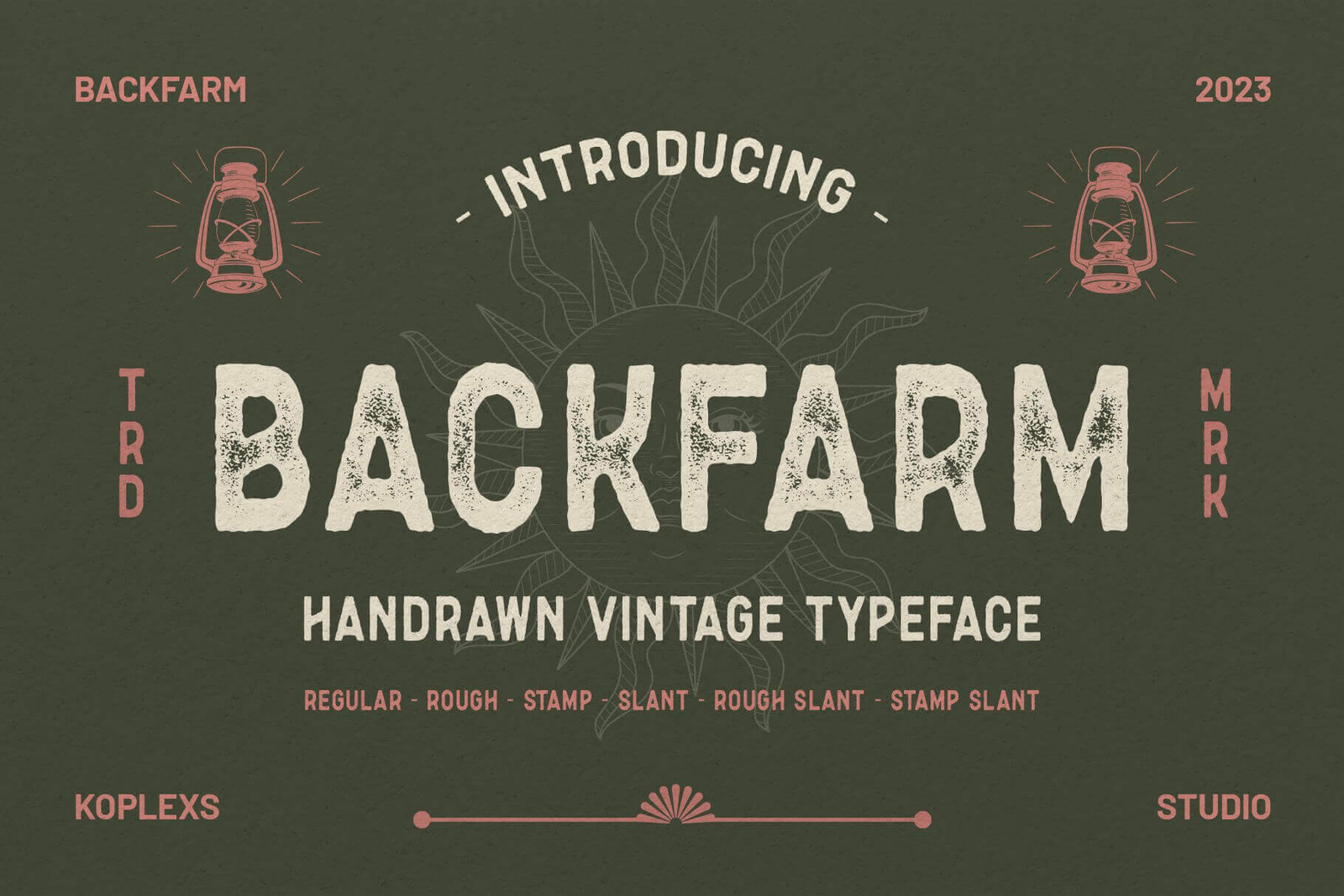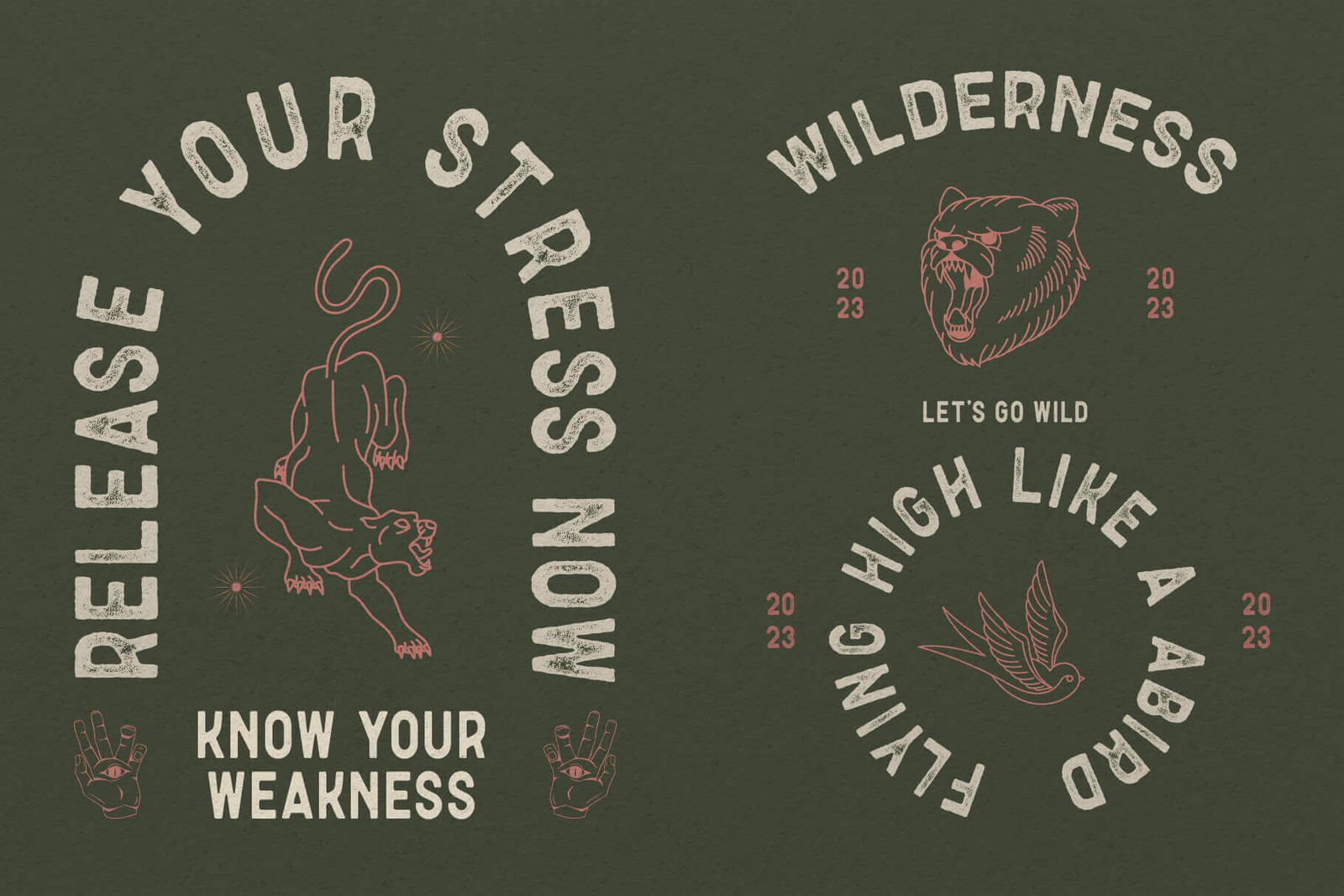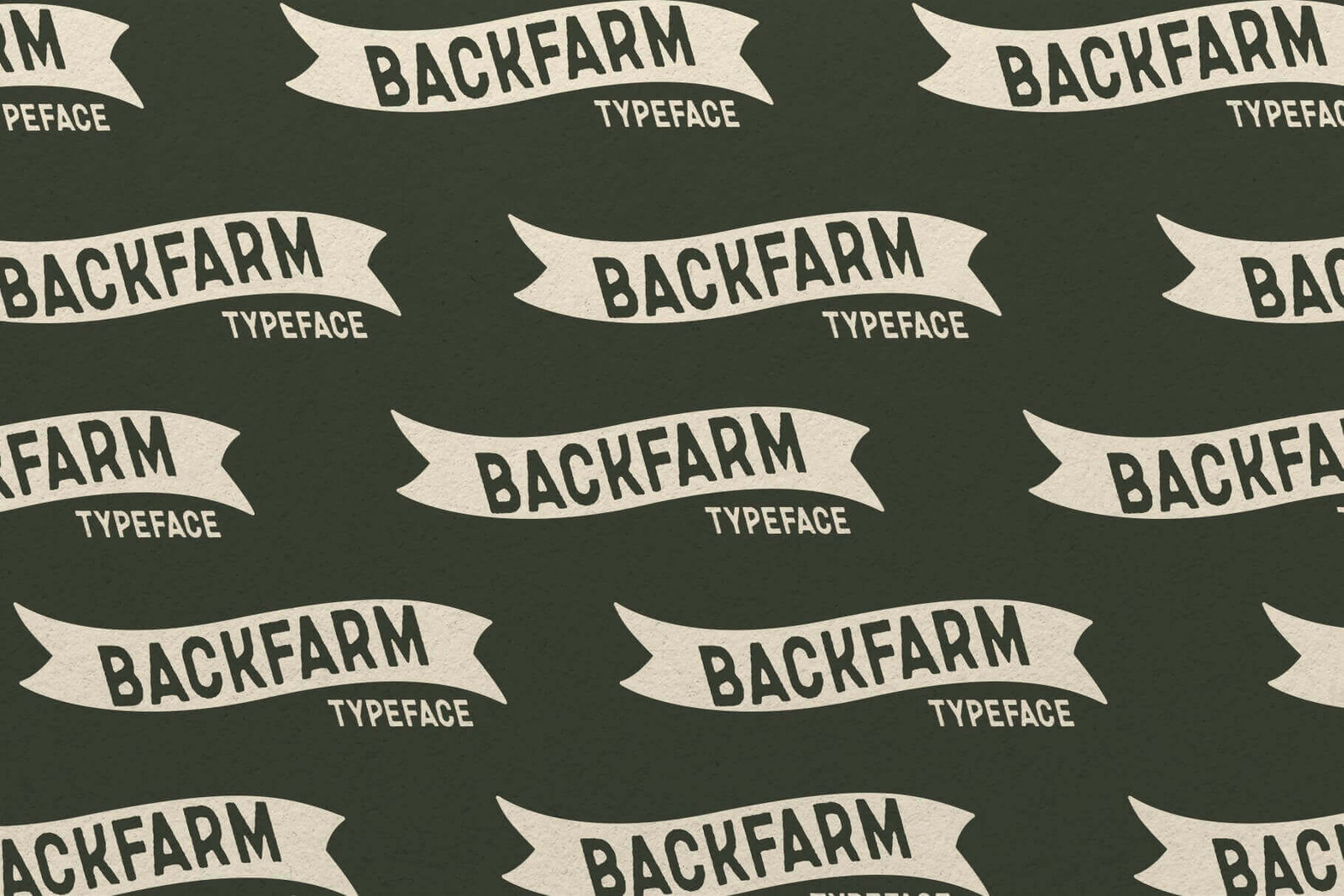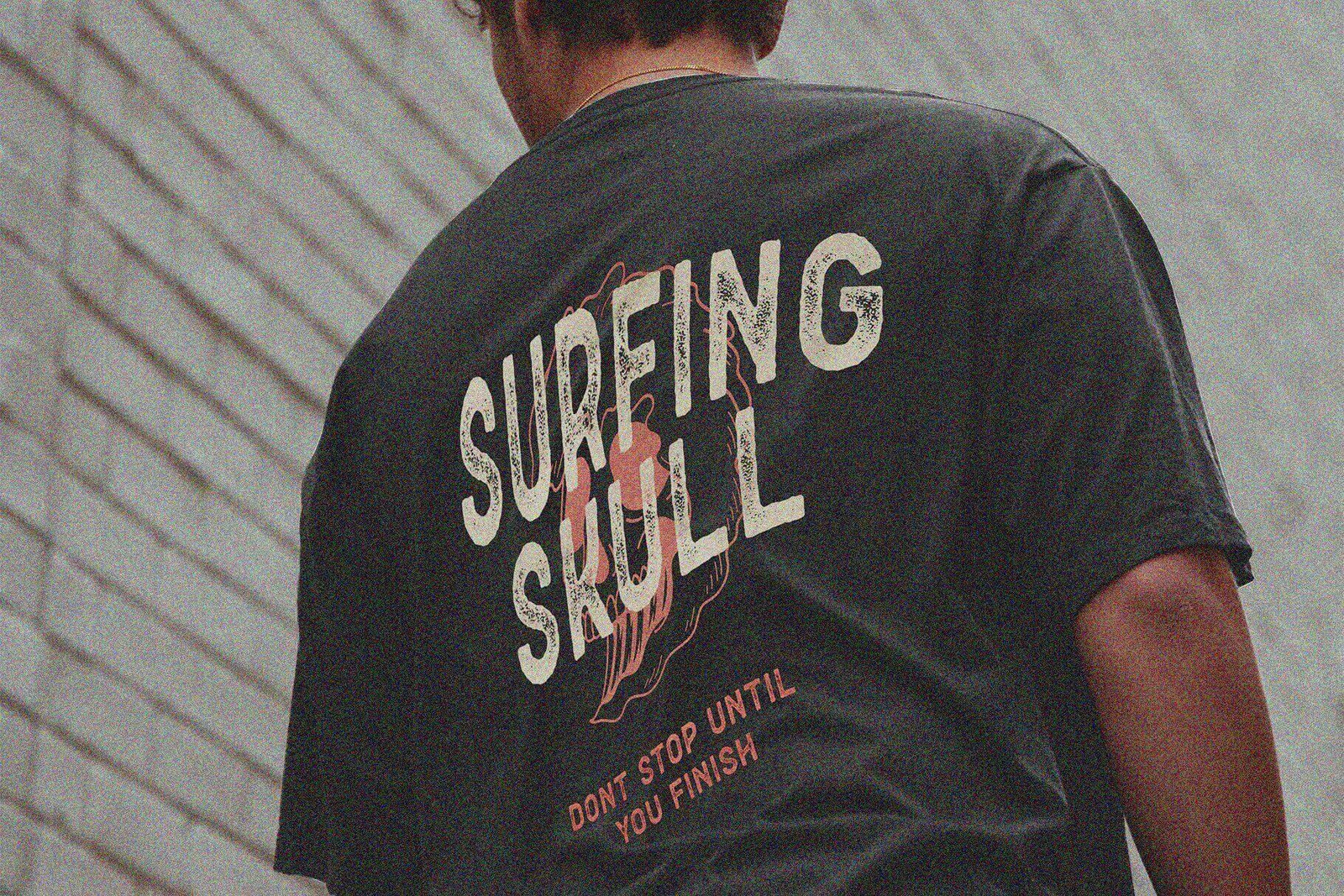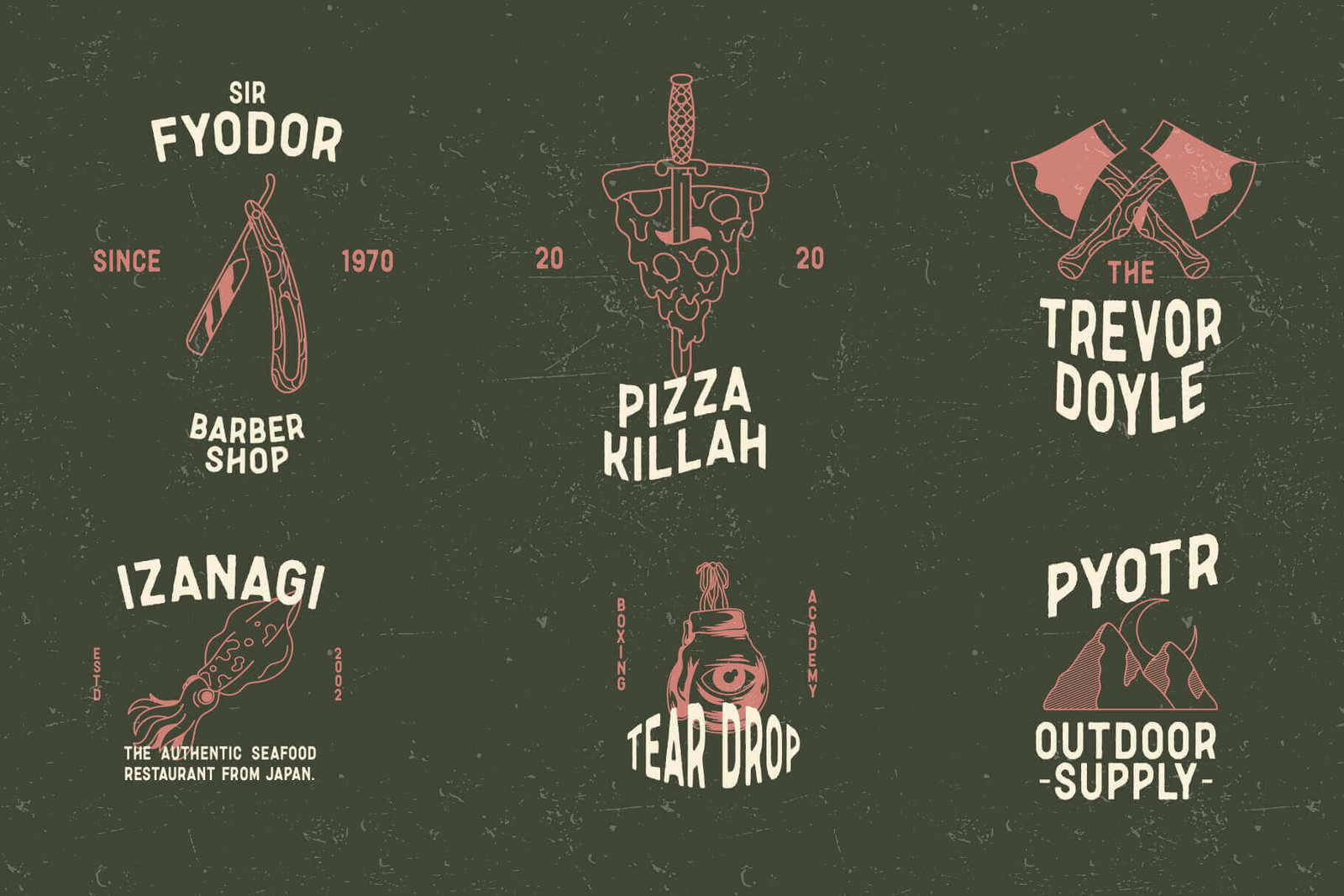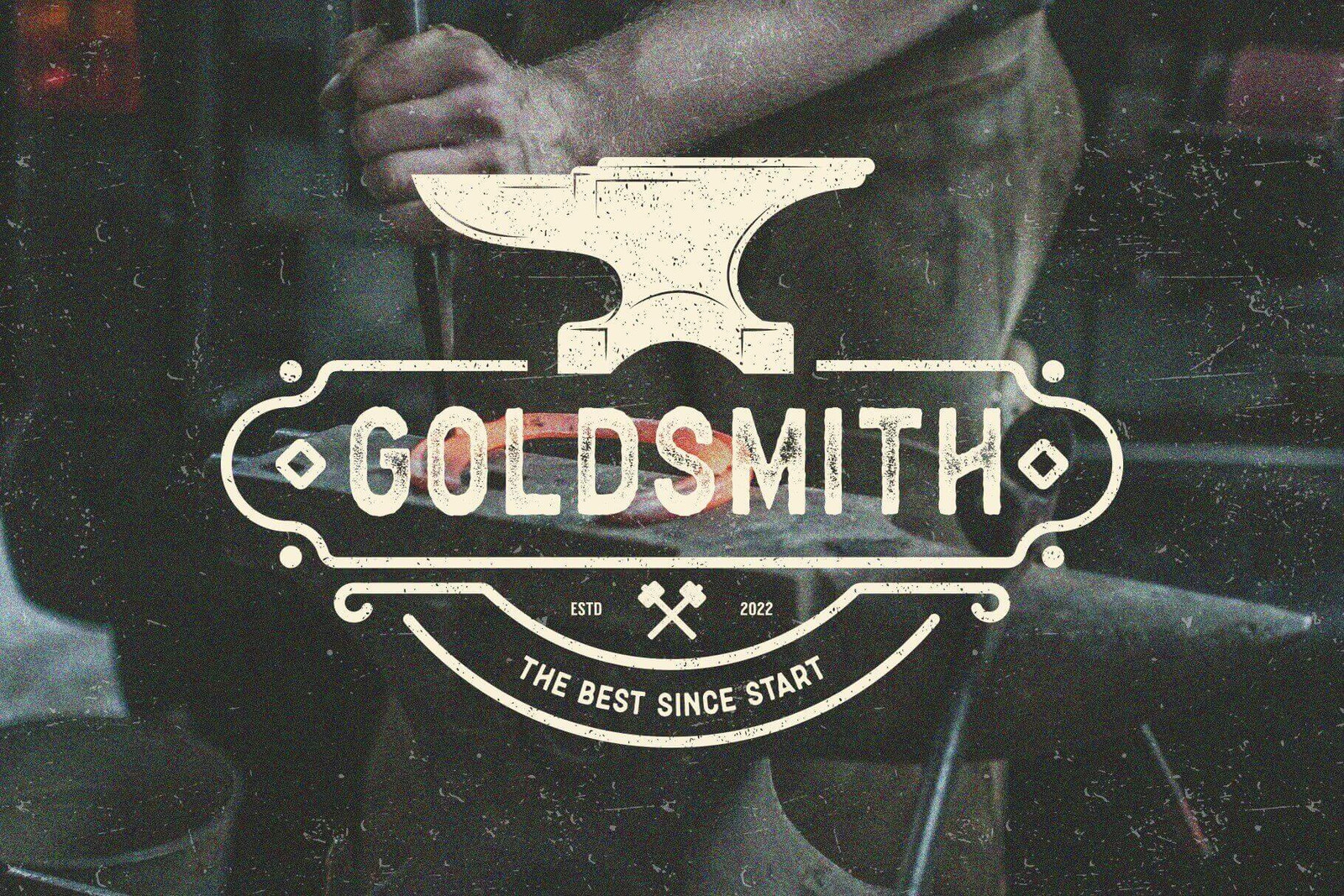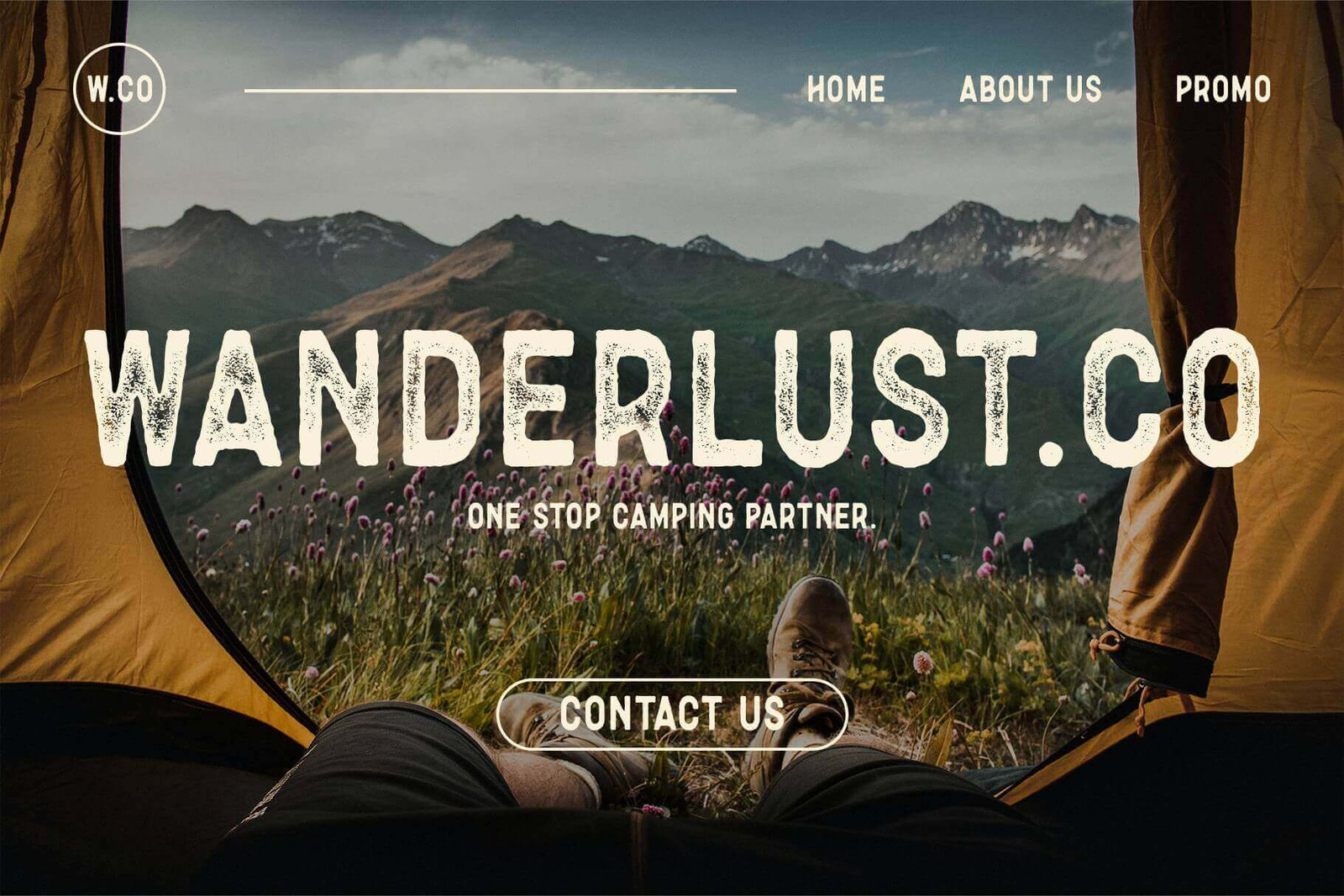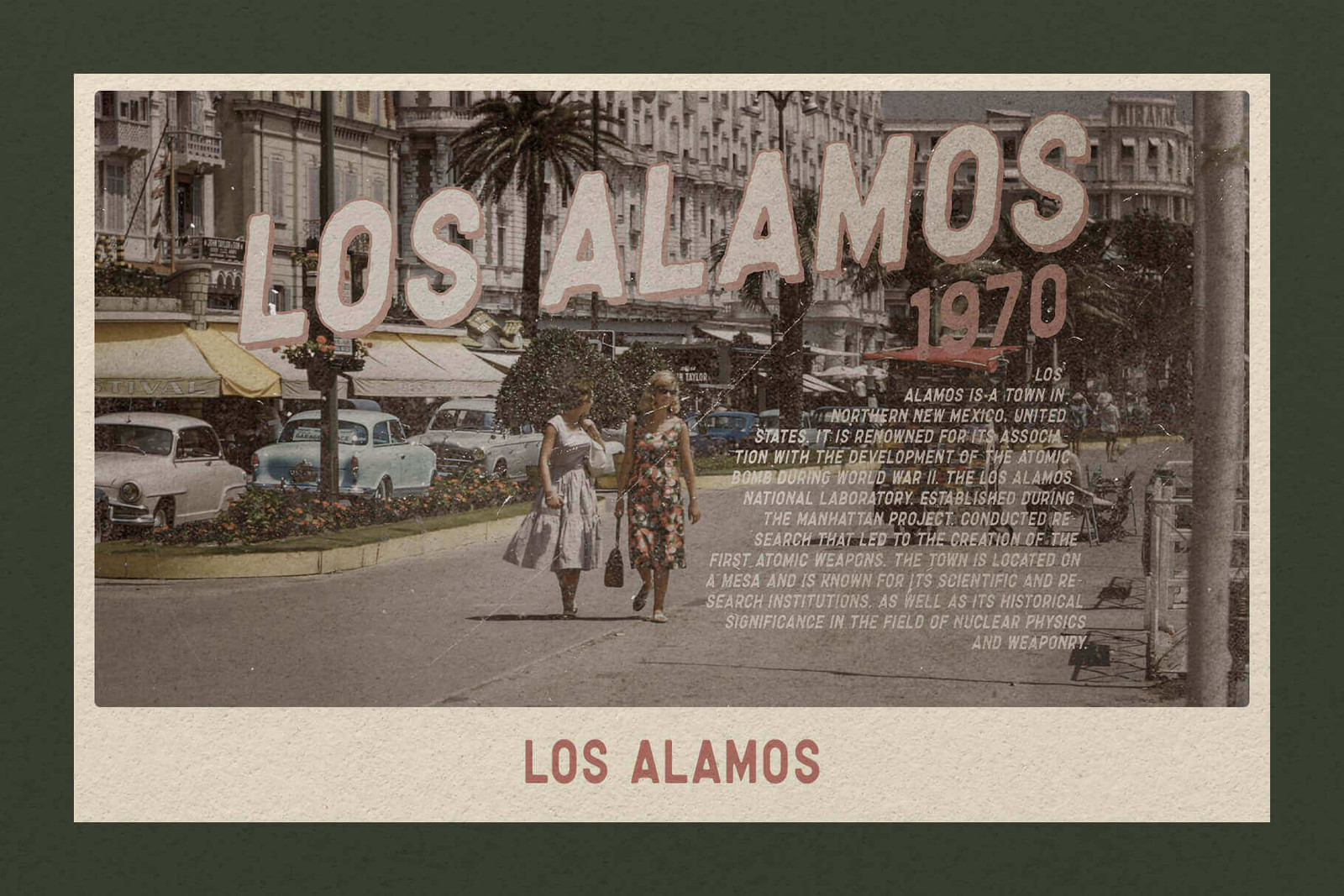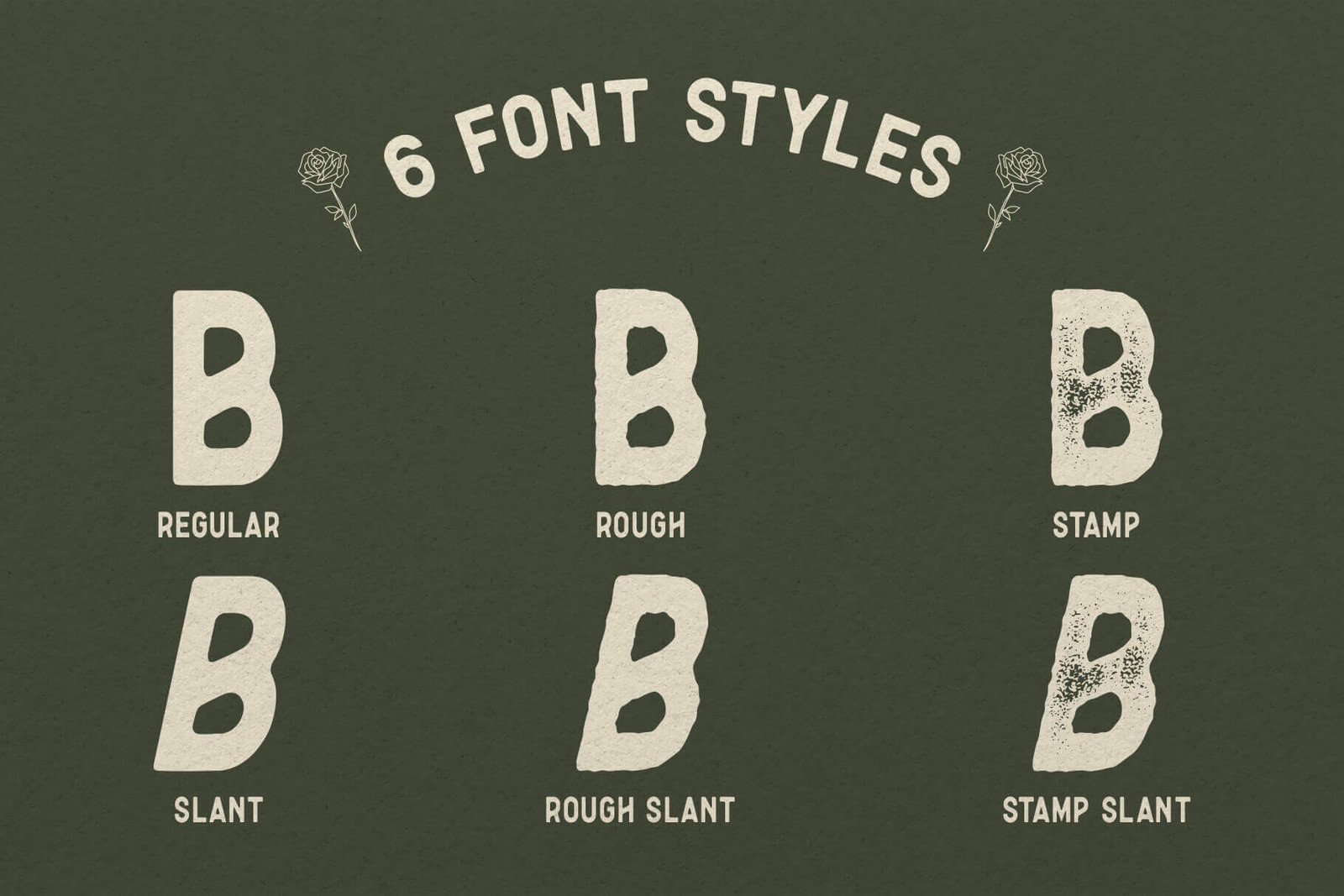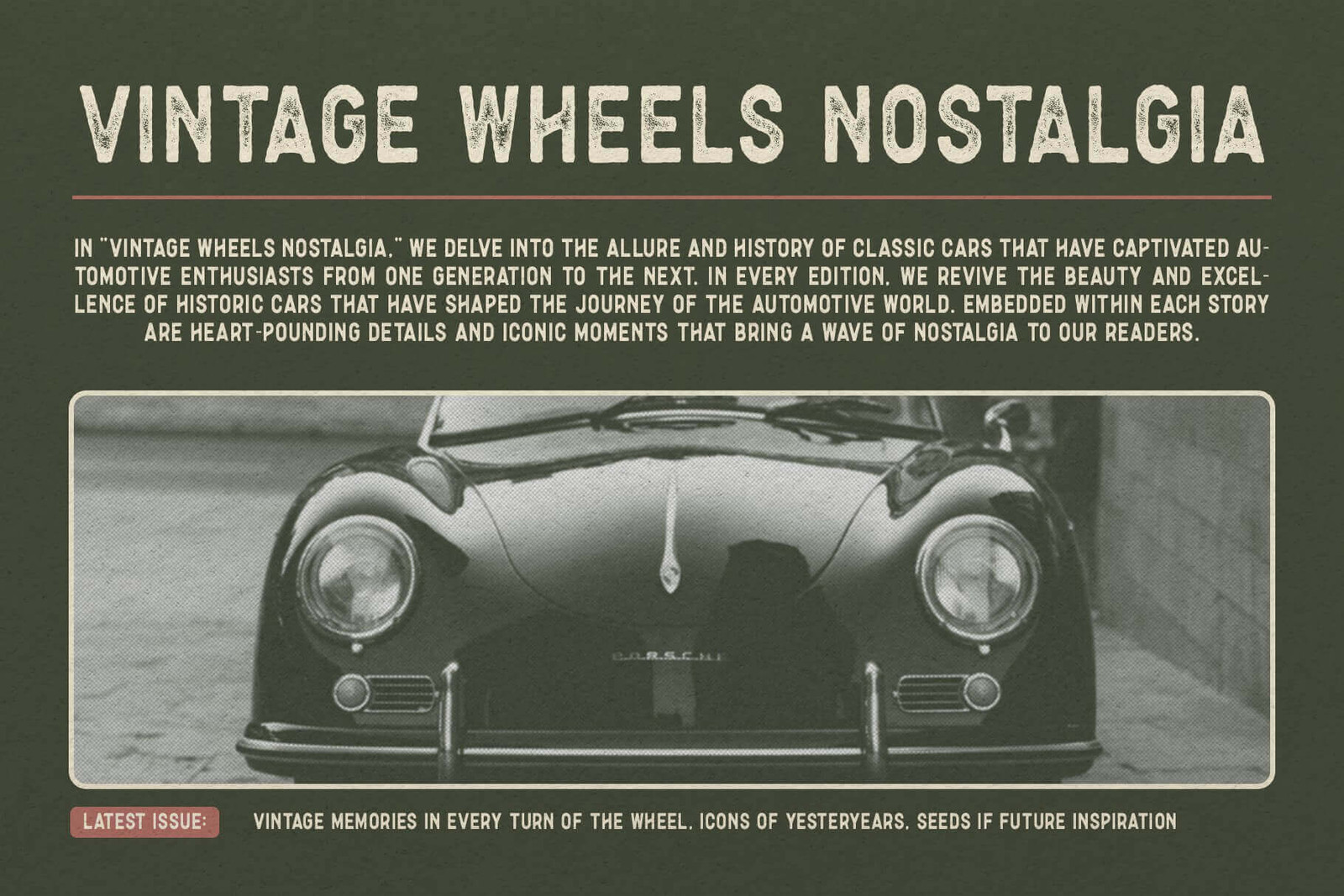
Backfarm – Handrawn Vintage Font
Backfarm – Handrawn Vintage Typeface: A Bold Statement of Rustic Elegance
Are you searching for a typeface that exudes character, personality, and charm? Look no further! Backfarm – Handrawn Vintage Typeface is here to transform your creative projects into stunning works of art. Crafted with a unique vintage touch and hand-drawn aesthetic, this typeface is your go-to font for capturing an authentic, rustic feel. Let’s dive into why Backfarm is the perfect font for your designs.
Modern fonts sometimes feel too generic or lack the personality needed to make your designs stand out. Whether you’re creating branding for a rustic café, designing a retro-style packaging, or crafting a poster with vintage vibes, finding the right typeface that matches the aesthetic can be a challenge.
You’ve tried countless fonts, only to discover they lack the warmth, texture, and nostalgic vibe you’re looking for. Standard fonts fail to convey the handmade charm your project demands, and finding a font with multiple styles that fits your theme is like looking for a needle in a haystack. This lack of the perfect typeface can slow down your workflow and leave you frustrated.
Introducing Backfarm – Handrawn Vintage Typeface, the ultimate typeface that blends vintage aesthetics with modern versatility. Designed with attention to detail, Backfarm features hand-drawn imperfections and textured finishes that add authenticity and charm to any project. With a variety of styles included, this font empowers you to create standout designs effortlessly.
Why Choose Backfarm?
1. Hand-Drawn Authenticity
Every letter in Backfarm has been meticulously crafted with a hand-drawn technique, giving it an organic, vintage feel. The slight imperfections add character and make your designs feel truly unique and human.
2. Versatile Styles for Every Project
Backfarm comes in a variety of styles to suit your creative needs:
- Regular: Clean and simple, perfect for bold headlines and branding.
- Rough: Adds texture for a rugged, vintage vibe.
- Stamp: Ideal for creating a weathered, antique look.
- Slant: A dynamic, italicized version that adds movement and style.
- Rough Slant: A combination of texture and slanted design for extra flair.
- Stamp Slant: The perfect choice for retro projects needing a dramatic edge.
With these styles, Backfarm gives you the flexibility to experiment and find the perfect match for your design.
3. Ideal for a Wide Range of Projects
Whether you’re designing for print or digital media, Backfarm delivers outstanding results. This font is particularly well-suited for:
- Logos: Create timeless logos with a rustic flair.
- Packaging: Add a vintage touch to food, beverage, or artisanal product packaging.
- Posters: Make bold statements with eye-catching headlines.
- Labels: Perfect for wine bottles, handmade crafts, and more.
- Social Media Graphics: Stand out in a crowded feed with a distinctive, nostalgic vibe.
4. Designed for Ease of Use
Backfarm is designed with usability in mind. Its multiple styles and clear letterforms ensure excellent readability, making it a great choice for both large headlines and smaller text.
Key Features
- Hand-Drawn Design: Authentic, natural, and full of personality.
- Six Unique Styles: Regular, Rough, Stamp, Slant, Rough Slant, and Stamp Slant.
- Vintage Aesthetic: Perfect for retro, rustic, and nostalgic designs.
- Multilingual Support: Includes a wide range of characters to support multiple languages.
- High Resolution: Works beautifully in print and digital formats.
Perfect for Designers, Creatives, and Brand Owners
Backfarm is more than just a typeface—it’s a design tool that helps you tell a story. Whether you’re a graphic designer working on client projects or a brand owner looking to elevate your visual identity, Backfarm delivers the visual impact you need to succeed.
Bring Your Vision to Life
Your creative projects deserve a font that speaks volumes. With Backfarm – Handrawn Vintage Typeface, you get more than just a typeface—you get a creative partner that amplifies your designs and captures your audience’s attention. Don’t settle for ordinary when you can create extraordinary.